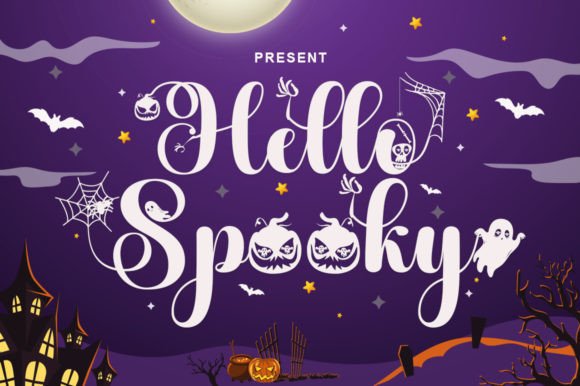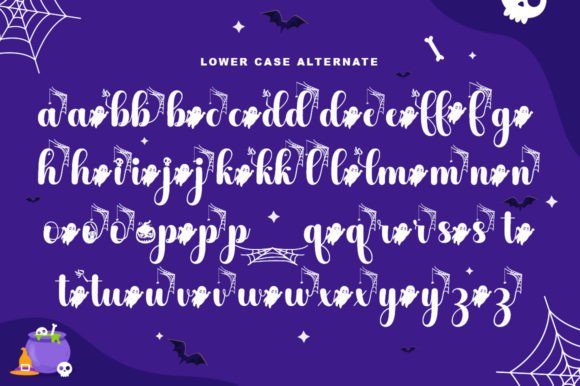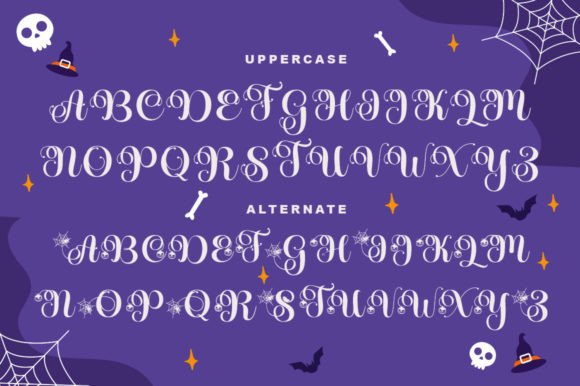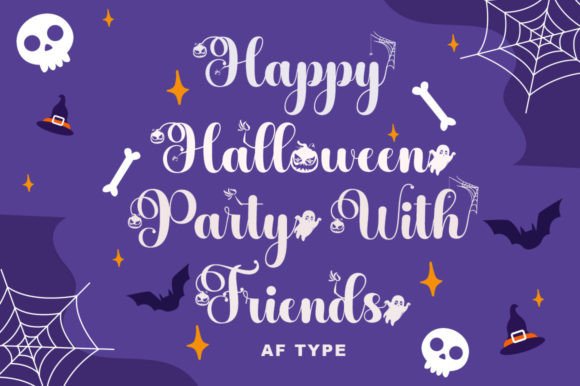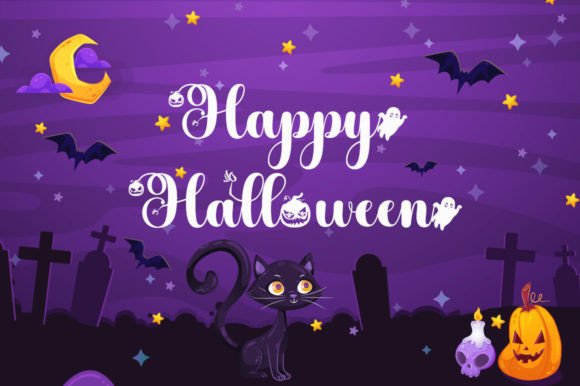
Hello Spooky Font: Playful and Eerie Typography for Halloween
“Hello Spooky” is a whimsical script font that brings a playful and eerie twist to your Halloween designs. Its unique characters with charming Halloween elements make it perfect for creating spooktacular projects.
Key Features of Hello Spooky Font
- Playful Style: Combines fun and excitement with a touch of mystery.
- Alternate Characters: Decorated with adorable Halloween elements for added creativity.
- Versatile Use: Ideal for various Halloween-themed designs.
Halloween Party Invitations
Use Hello Spooky to create eye-catching and festive invitations that set the mood for your spooky celebrations.
Spooky Decorations
Design unique posters and decorations that bring the Halloween spirit to life in your home or event space.
Social Media Graphics
Create engaging Halloween-themed content for your social media platforms that will captivate your audience.
Why Choose Hello Spooky Font?
Hello Spooky offers more than just spooky letters. Here’s why it stands out:
- Adds a unique blend of charm and mystery to your designs
- Versatile enough for various Halloween-themed projects
- Helps create memorable and engaging visuals
By using Hello Spooky, you open up new design possibilities. Its playful style works well in many contexts, from greeting cards to website banners.
If you want a font that’s both fun and slightly spooky, Hello Spooky is an excellent choice. It’s perfect for adding a touch of Halloween magic to your work, especially for projects that need a whimsical yet eerie feel.
Explore how Hello Spooky can transform your Halloween designs. From party invitations to merchandise designs, this font brings a spooktacular and enchanting quality to your creations.